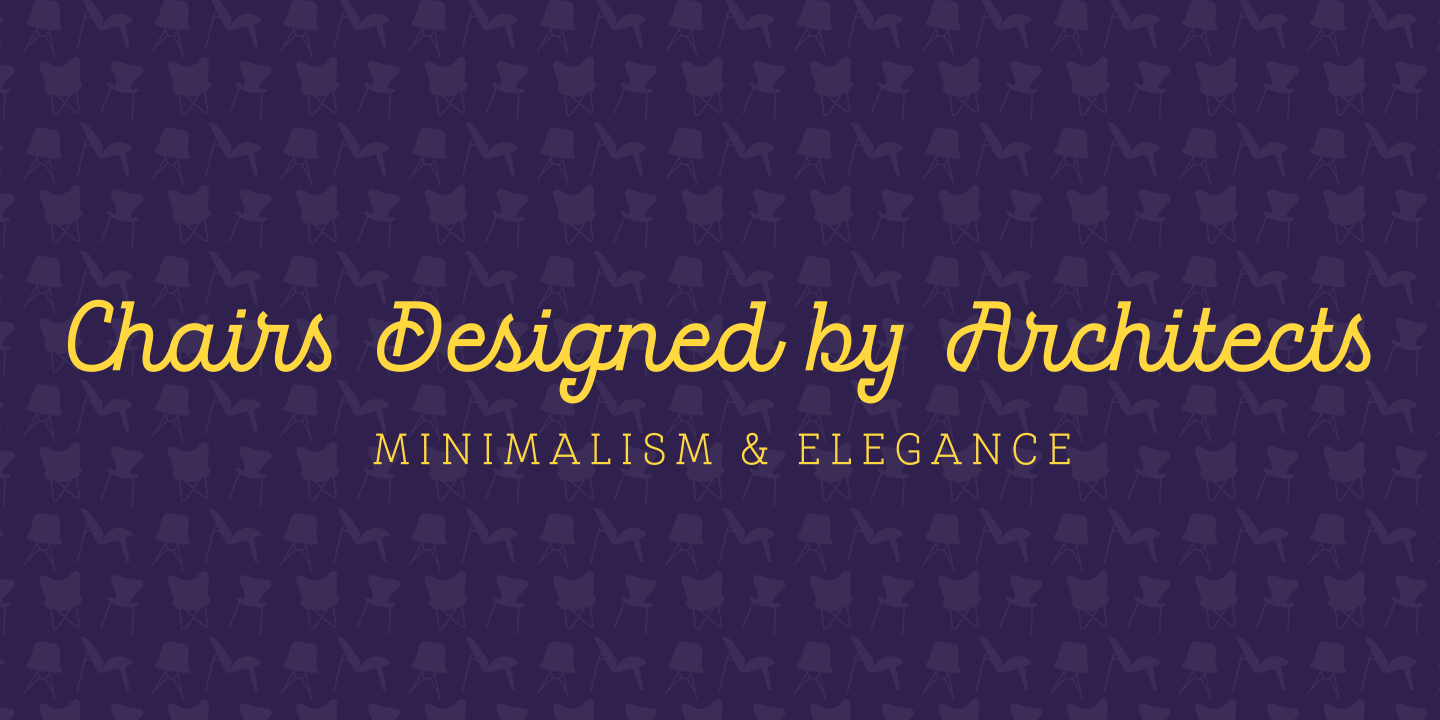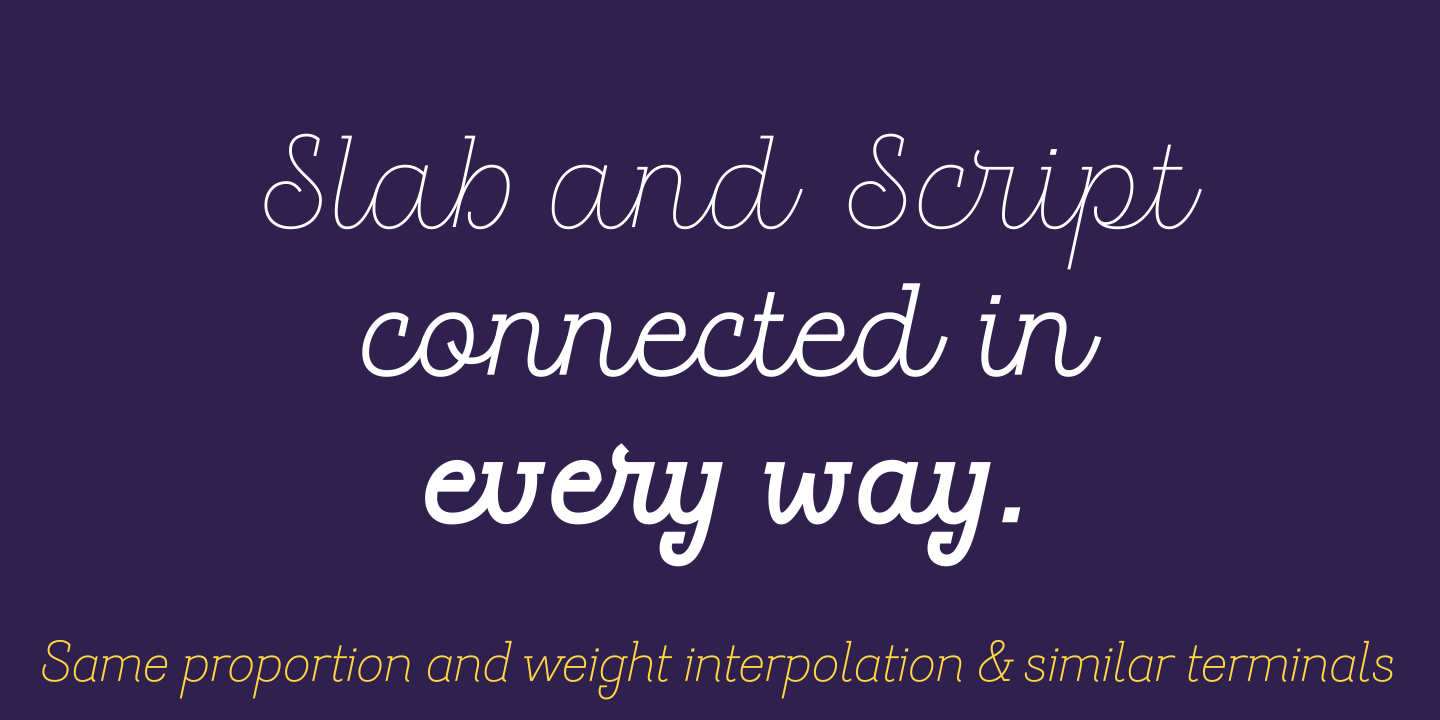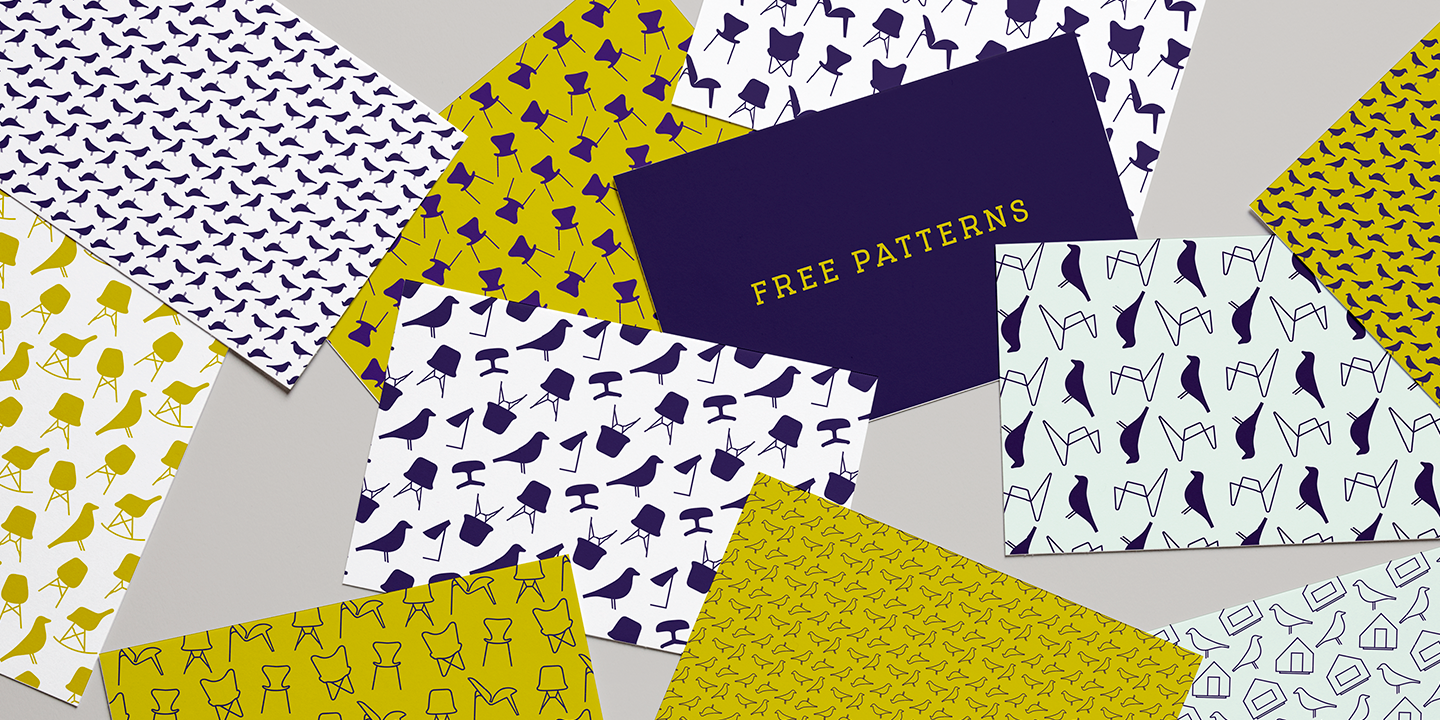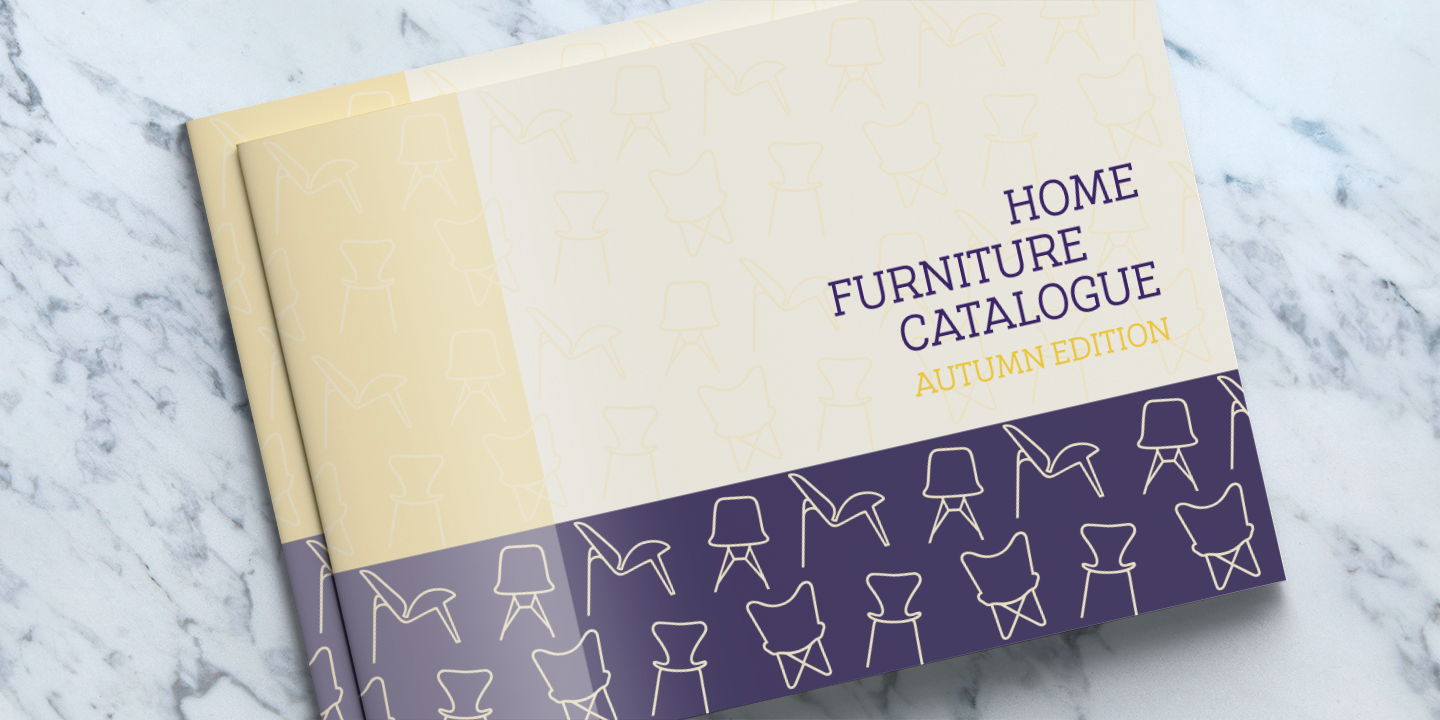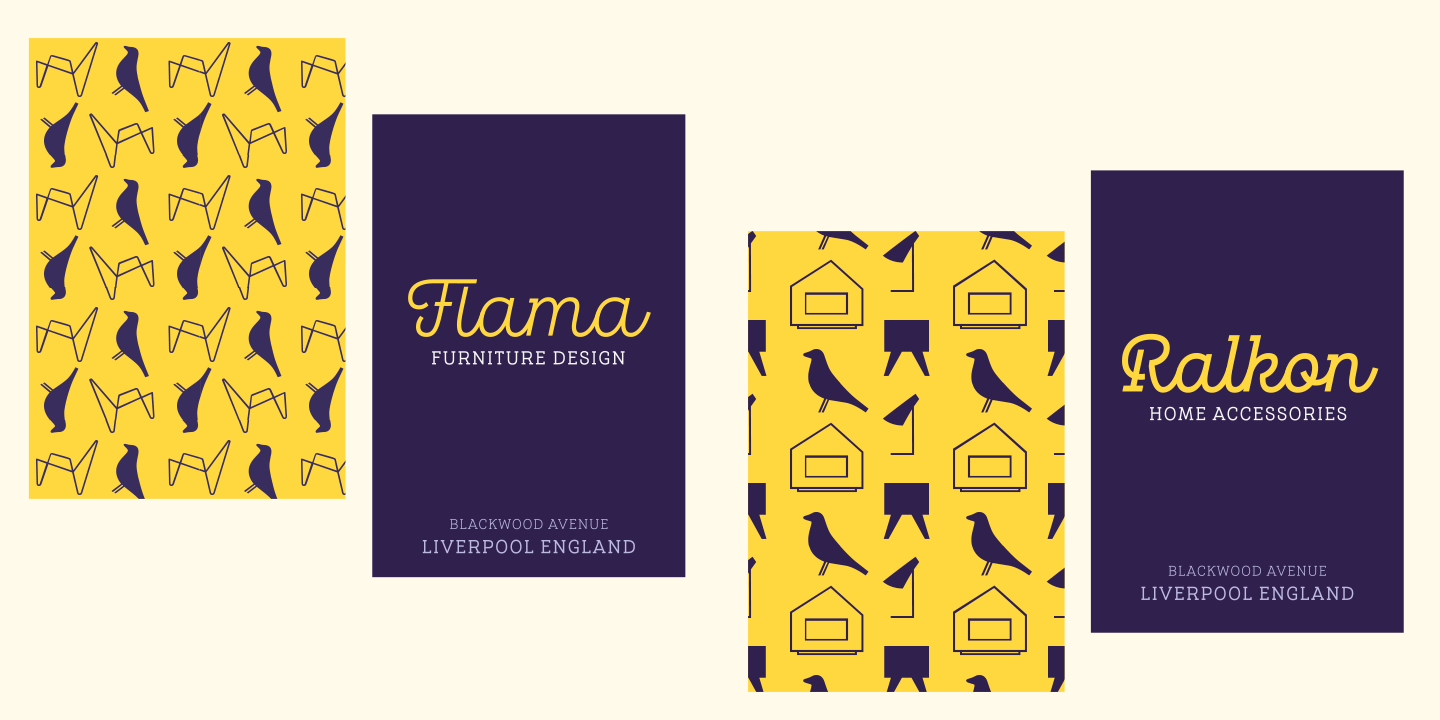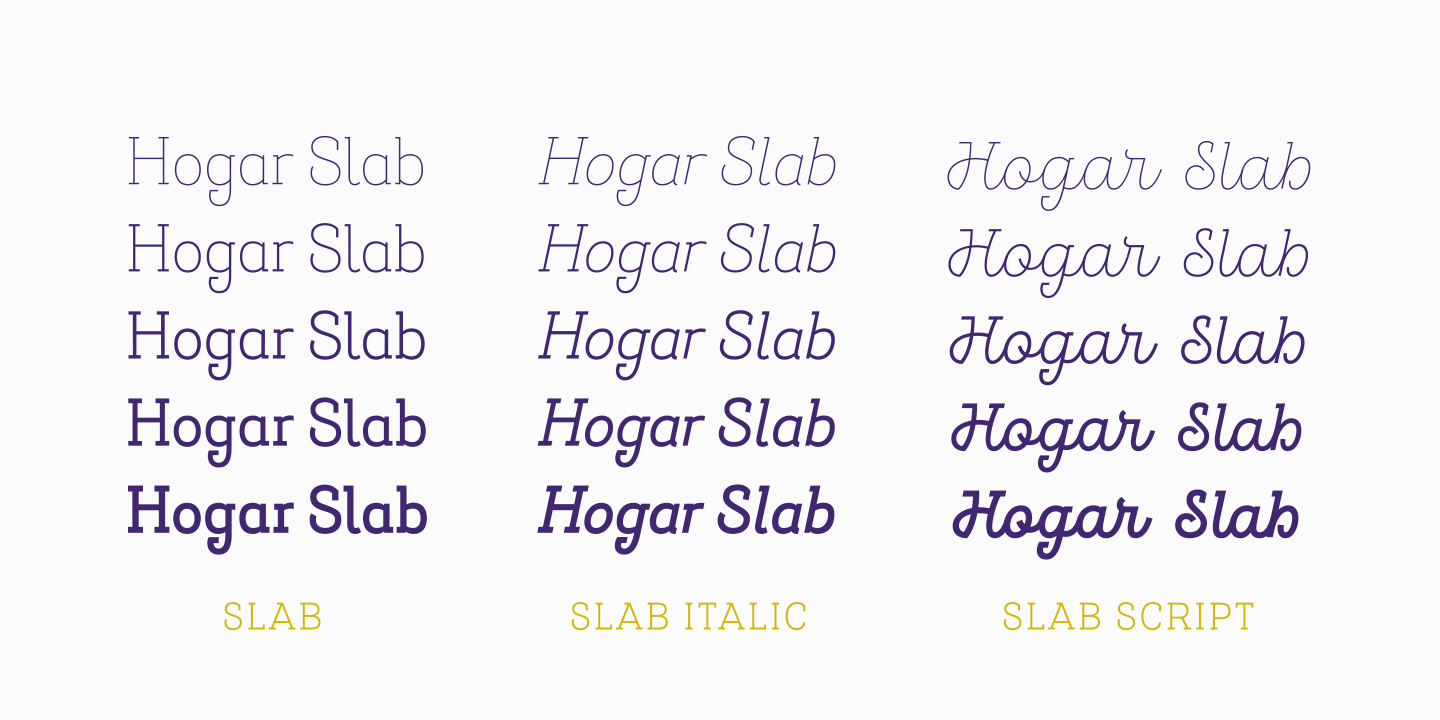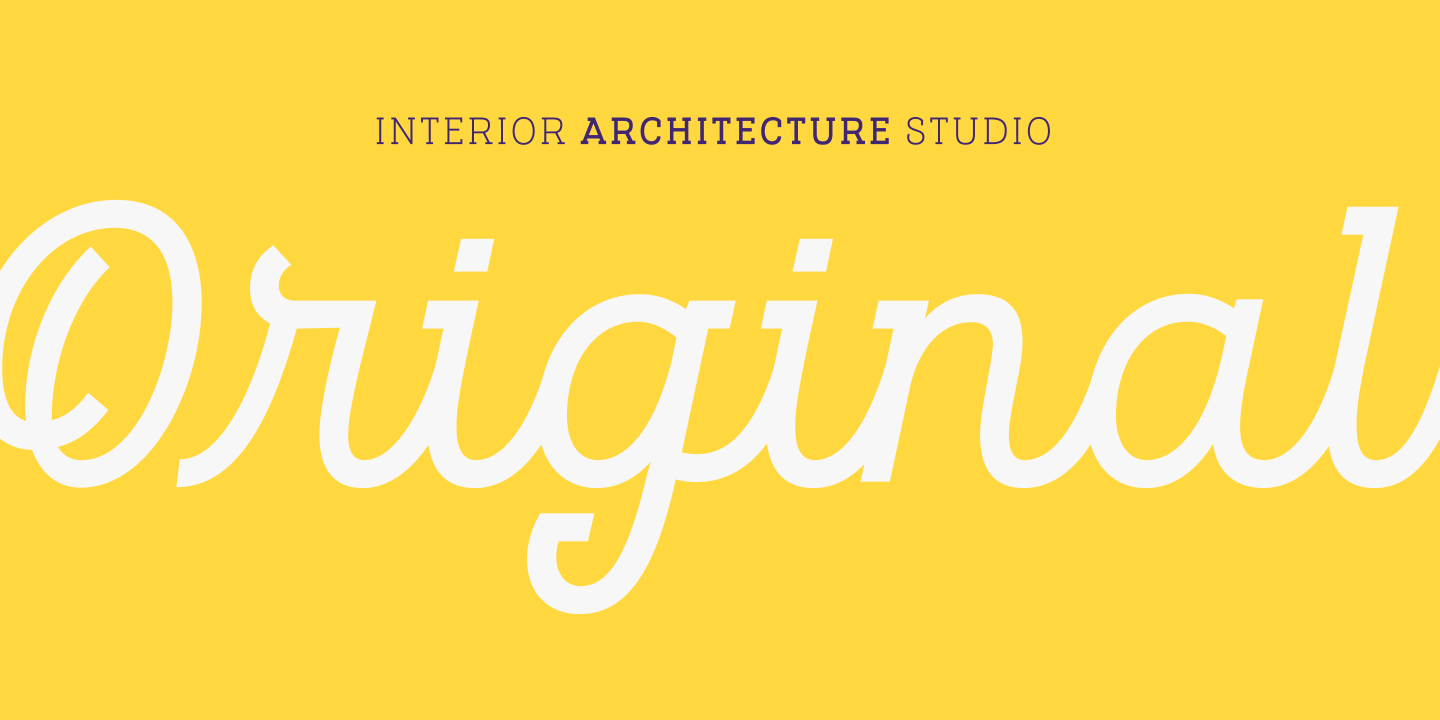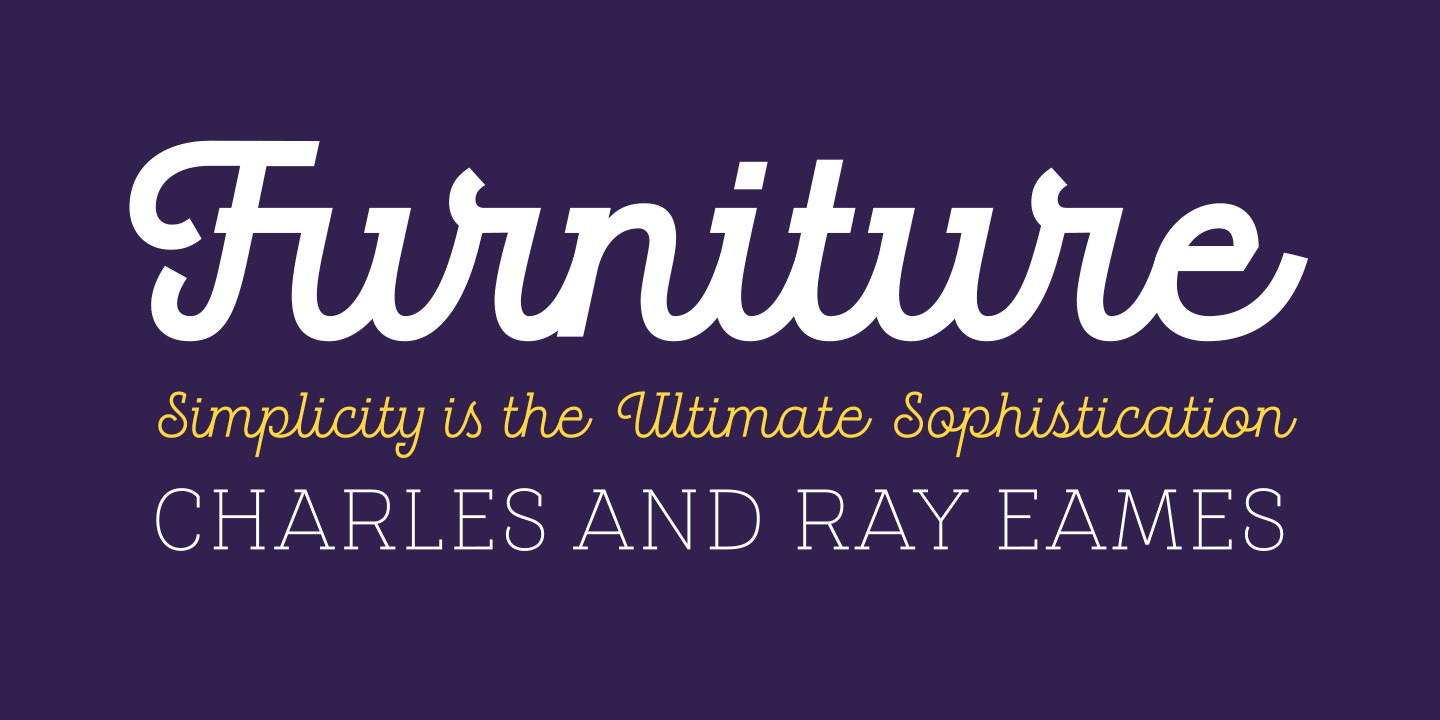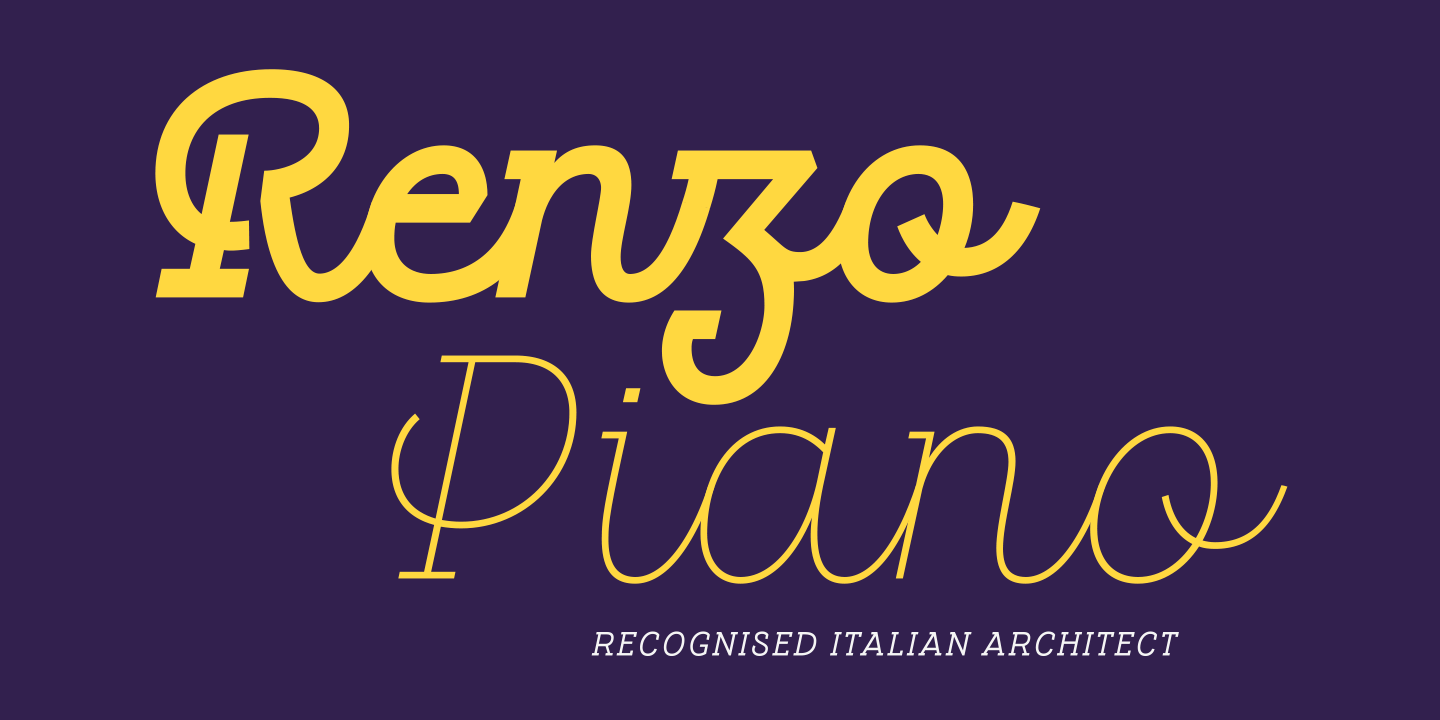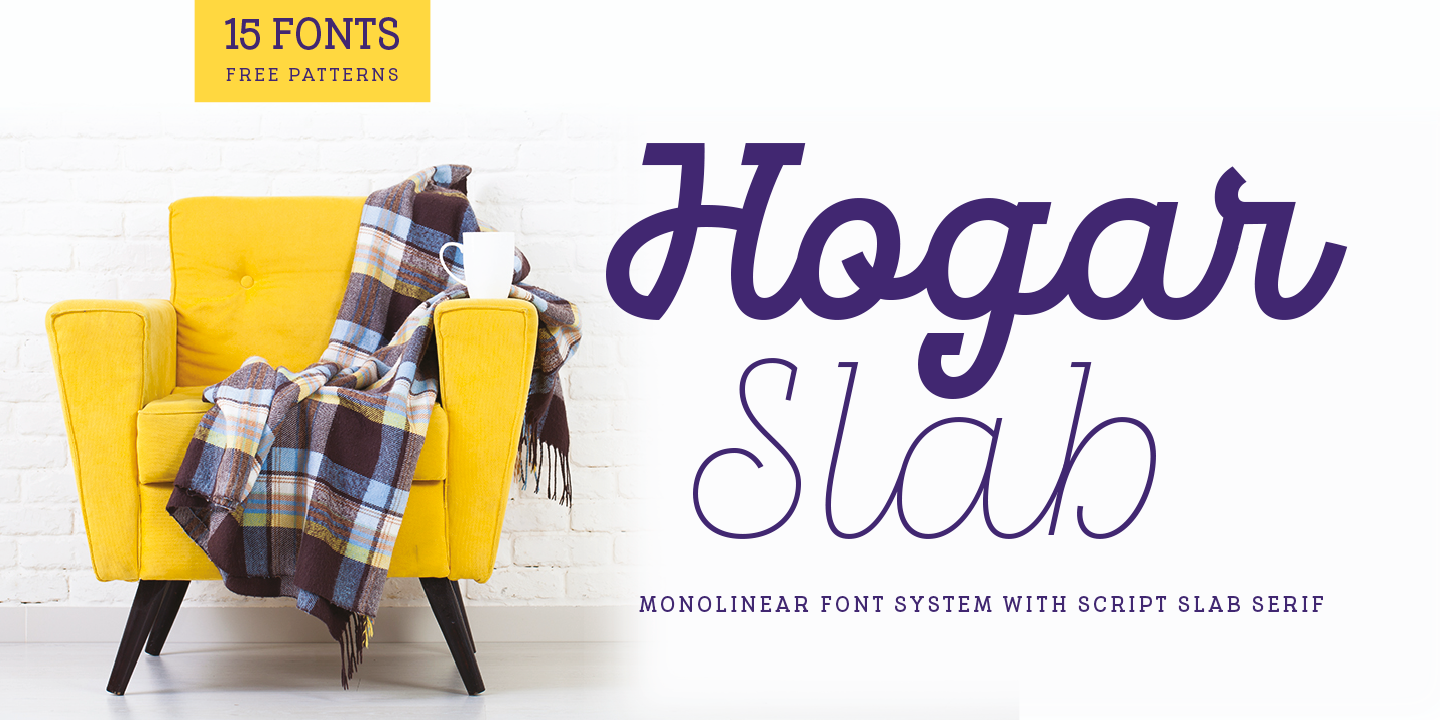
Hogar Slab, based on the Hogar typeface, is the result of combining a script and a slab serif into a single type system.
The system has a monolinear style composed of a slab serif and a script slab serif version that share similar proportions, weight interpolations and details. Hogar Slab is basically a slab serif with script gestures and a script with slab serif shapes.
In order to make the system more complete, I included an italic version, which represents a transition between both main styles. Additionally, I developed a set of patterns including some furniture designs by well-known architects.